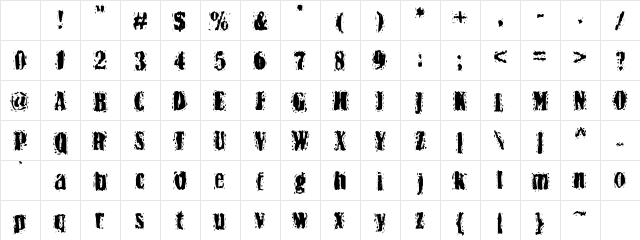
Complete BN-Yiftach Rough Heavy glyph index. Displaying only characters natively supported by BN-Yiftach Rough Heavy font.
BN-Yiftach Rough embraces imperfection - its rough, textured character adds raw authenticity to designs that want to feel lived-in and unconventional.
Pro Tip: Use BN-Yiftach Rough at larger sizes where the texture and irregularity of each letterform can be clearly seen - it loses its character at small sizes.